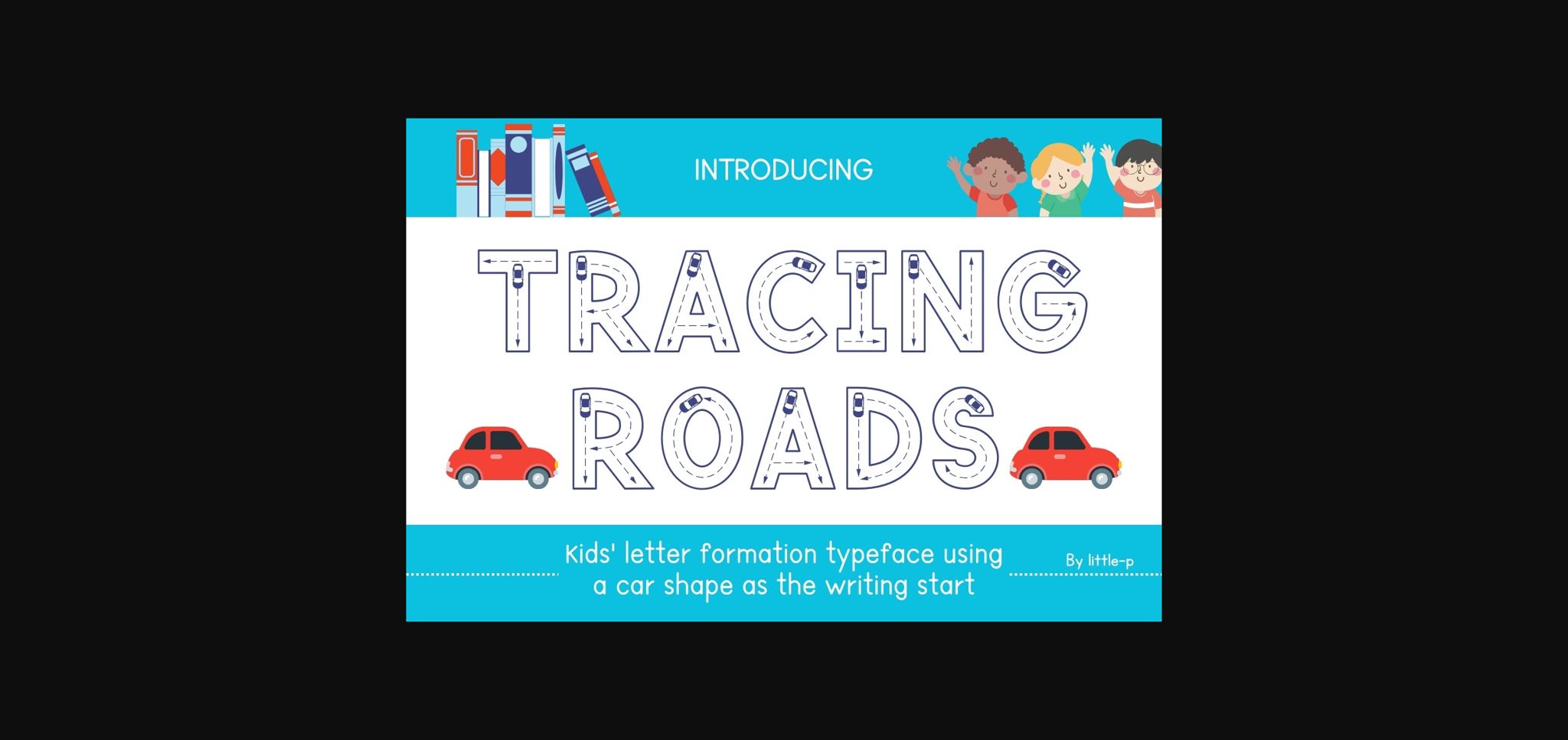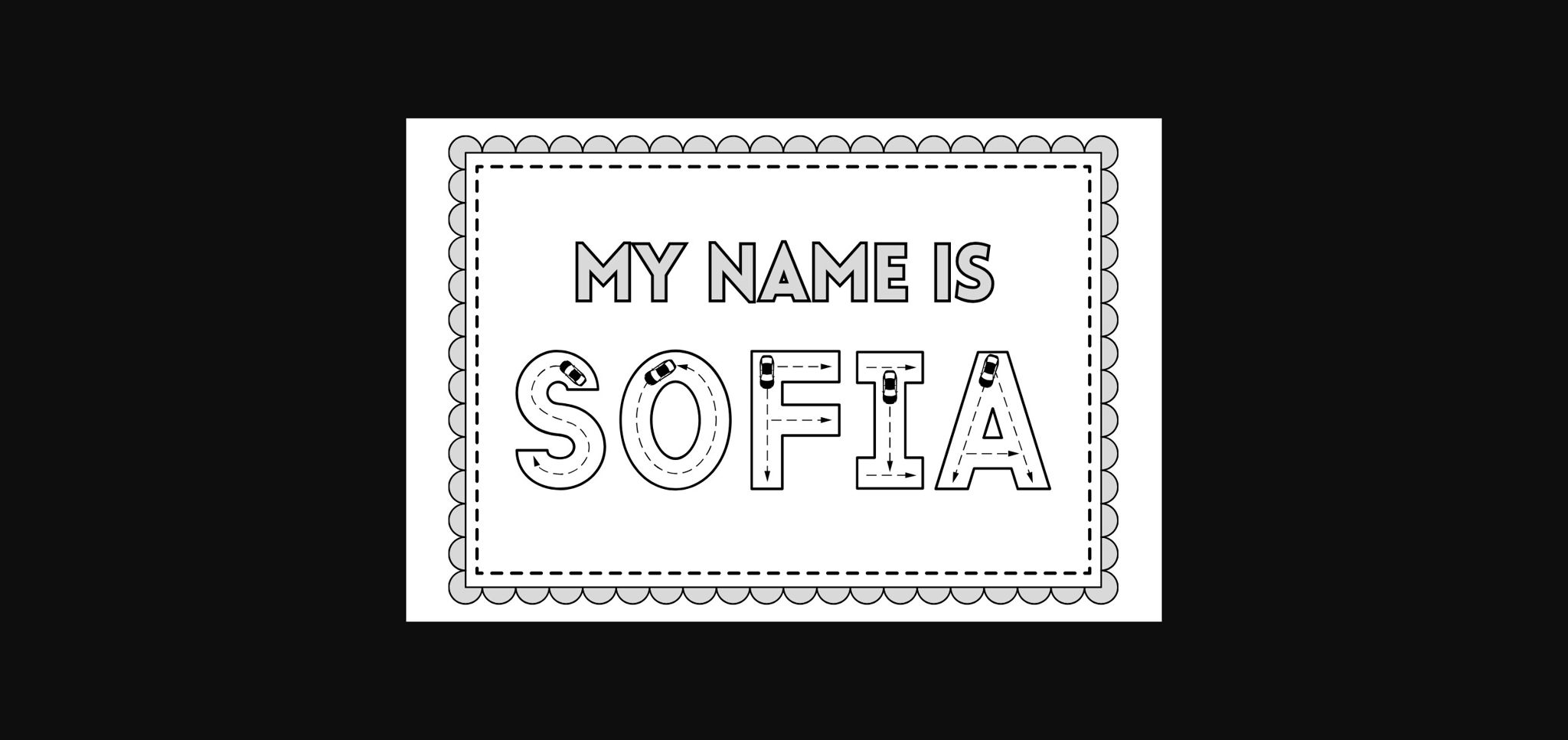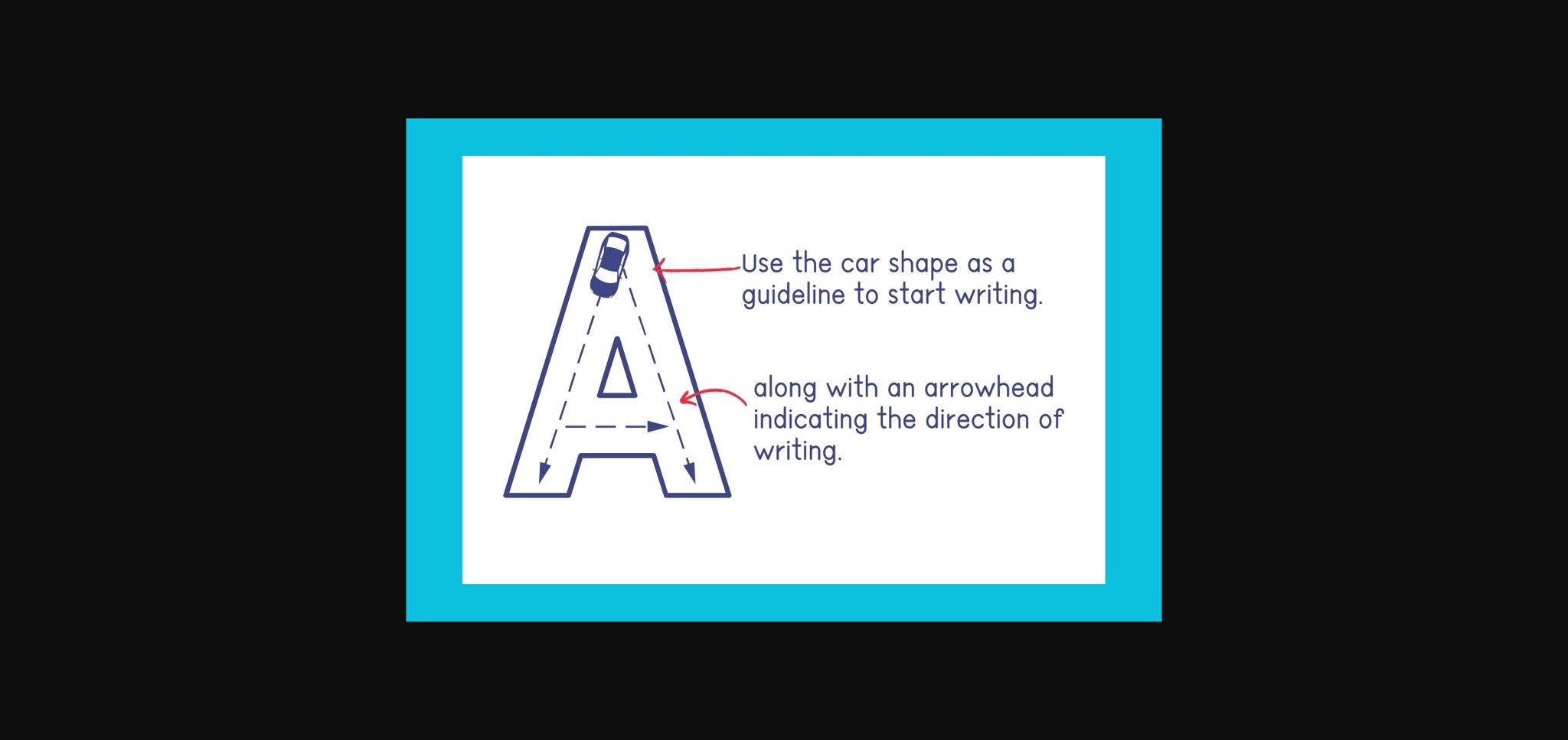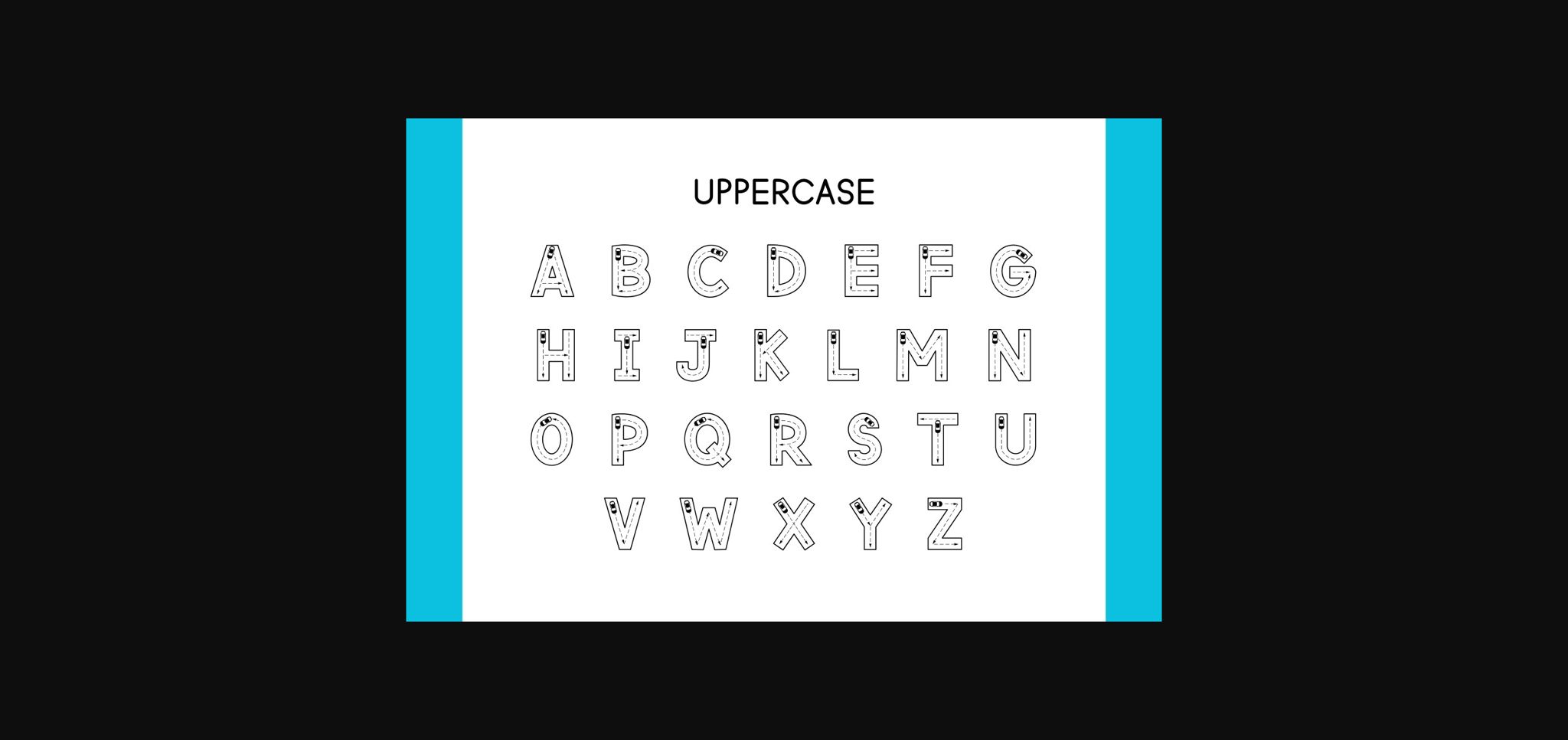
About Tracing Roads Font
Introducing “Tracing Roads” a unique alphabet tracing font designed with a creative twist. Featuring a car shape as the starting point for letter formation, this font adds an element of fun and adventure to learning. Perfect for children, “Tracing Roads” helps develop letter recognition skills while maintaining a playful and engaging appearance. Ideal for various educational purposes such as studying, worksheets, and learning media for students of all ages, including kindergarten and elementary students. Whether used in classrooms or for homeschooling, “Tracing Roads” is a valuable tool for teachers and parents alike, fostering essential writing skills in an enjoyable and interactive way.